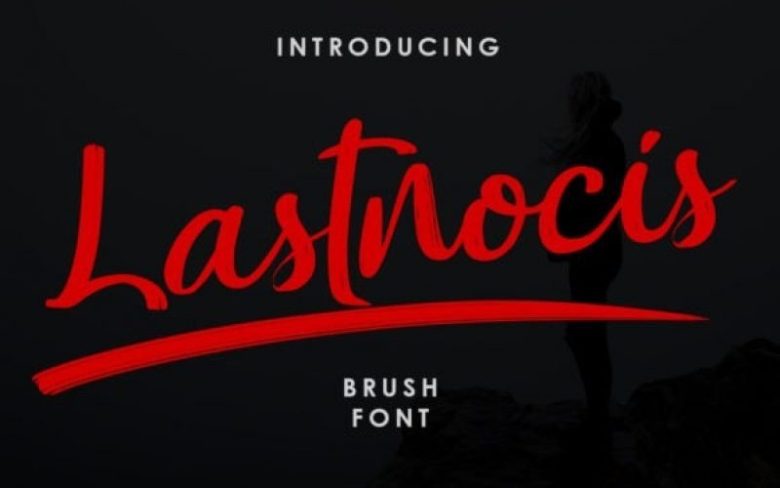
Lastnocis Brush Font
Lastnocis Brush Font is a casual and smooth handwritten script font. It has a playful feel that will turn any crafting idea into a true standout. It’s designed and shared by Rochart. Fall in love with its incredibly distinct and timeless style and use it to create spectacular designs! This font is PUA encoded which means you can access all of the glyphs and swashes with ease! It features a varying baseline, smooth lines, gorgeous glyphs and stunning alternates.